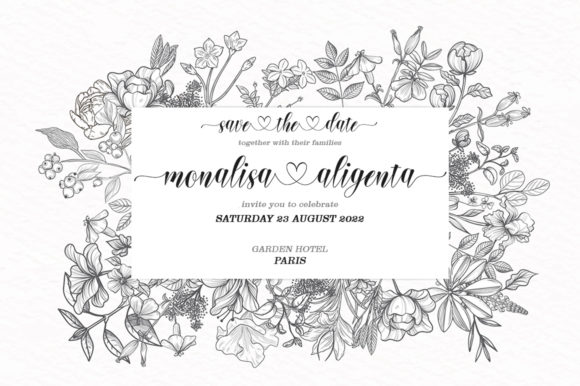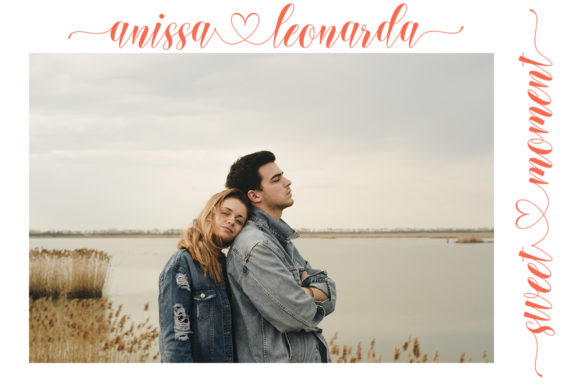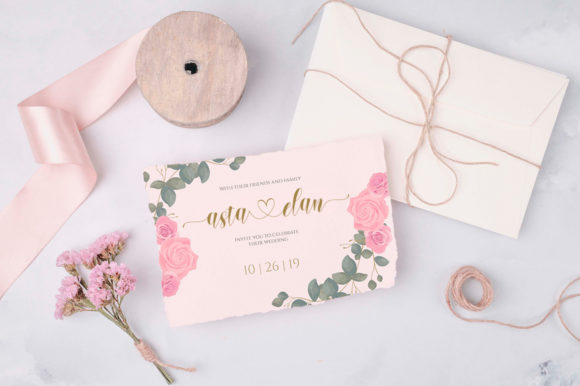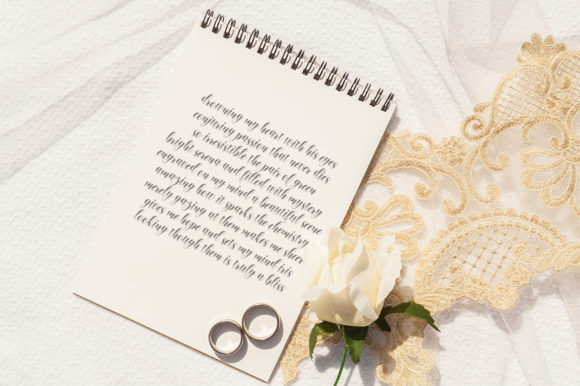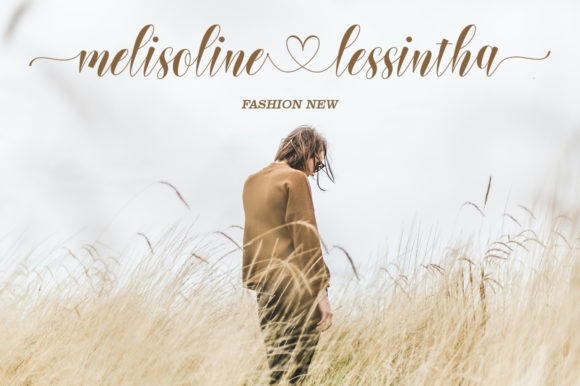
Hello Deline Font: Elevate Your Designs with Elegance and Charm
Hello Deline font is a beautiful, handwritten typeface that has captured the hearts of designers and crafters alike. Its unique blend of charm and elegance makes it an ideal choice for a wide range of design projects, from wedding invitations and greeting cards to logos and business cards. In this article, we’ll explore the features and benefits of Hello Deline font, and why it’s become a go-to choice for designers seeking to add a touch of sophistication to their work.
Aesthetic Appeal of Hello Deline Font
Hello Deline font boasts a distinctive, handcrafted look that feels both charming and elegant. Its varying baseline, smooth lines, and gorgeous glyphs work together to create a visually appealing effect that’s sure to capture attention. The font’s design is characterized by a sense of fluidity and movement, which gives it a dynamic, organic feel. Whether you’re creating wedding invitations, thank you cards, or quotes, Hello Deline font is sure to add a touch of whimsy and romance to your designs.
Versatility of Hello Deline Font
One of the standout features of Hello Deline font is its versatility. This beautiful typeface can be used for a wide range of design projects, including:
- Quotes and social media graphics
Wherever you need to add a touch of elegance and sophistication, Hello Deline font is an excellent choice.
Hello Deline font is PUA (Private Use Area) encoded, which means that you can access all of the glyphs and swashes with ease. PUA encoding allows designers to access a wide range of special characters and glyphs that are not available in standard fonts. This feature makes it easy to customize your designs and add unique touches that set your work apart.
Key Features of Hello Deline Font
Hello Deline font comes with a range of features that make it an attractive choice for designers. Some of its key features include:
- Varying baseline for a dynamic, organic feel
- Smooth lines and gorgeous glyphs for a beautiful, handcrafted look
- Stunning alternates for added versatility
- PUA encoding for easy access to glyphs and swashes
Why Designers Love Hello Deline Font
So, why have designers fallen in love with Hello Deline font? Here are just a few reasons:
- Elegance and charm: Hello Deline font adds a touch of sophistication and whimsy to any design project.
- Versatility: This font can be used for a wide range of design projects, from wedding invitations to logos and branding materials.
- Easy to use: PUA encoding makes it easy to access all of the glyphs and swashes, even for designers who are new to using special characters.
- Unique and eye-catching: Hello Deline font is sure to make your designs stand out from the crowd.
Hello Deline font is a beautiful, elegant, and charming typeface that’s perfect for designers seeking to add a touch of sophistication to their work. With its varying baseline, smooth lines, gorgeous glyphs, and stunning alternates, this font is sure to elevate your designs and make them stand out from the crowd. Whether you’re creating wedding invitations, logos, or business cards, Hello Deline font is an excellent choice. So why not give it a try and see the difference it can make in your designs?